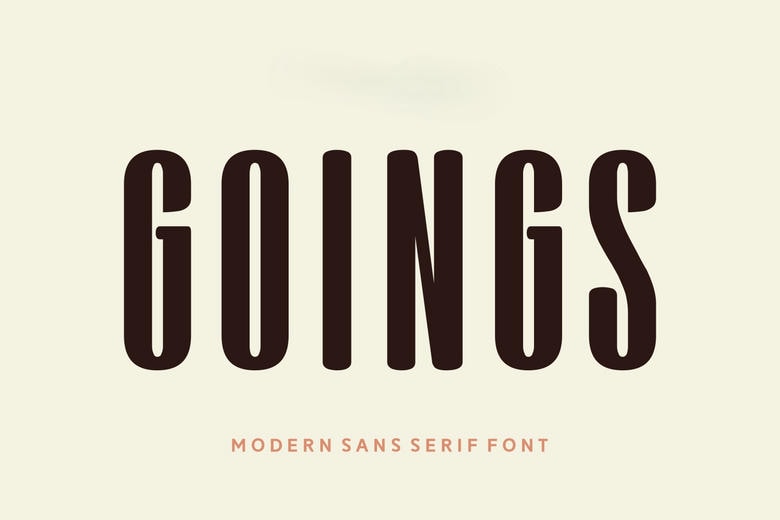
Goings Font
Goings is an aggressive and extreme condensed modern sans serif typeface, which begs the attention of others due to its vertical orientation and smooth curves. Goings is ideal for use in headlines, posters, logos, and the appearance of editorial layouts, creating the impact of a knockout and the appearance of simple and minimalistic style. The fact that it is retro styled makes it look stylish in every contemporary design task.
Goings Sans Serif Font